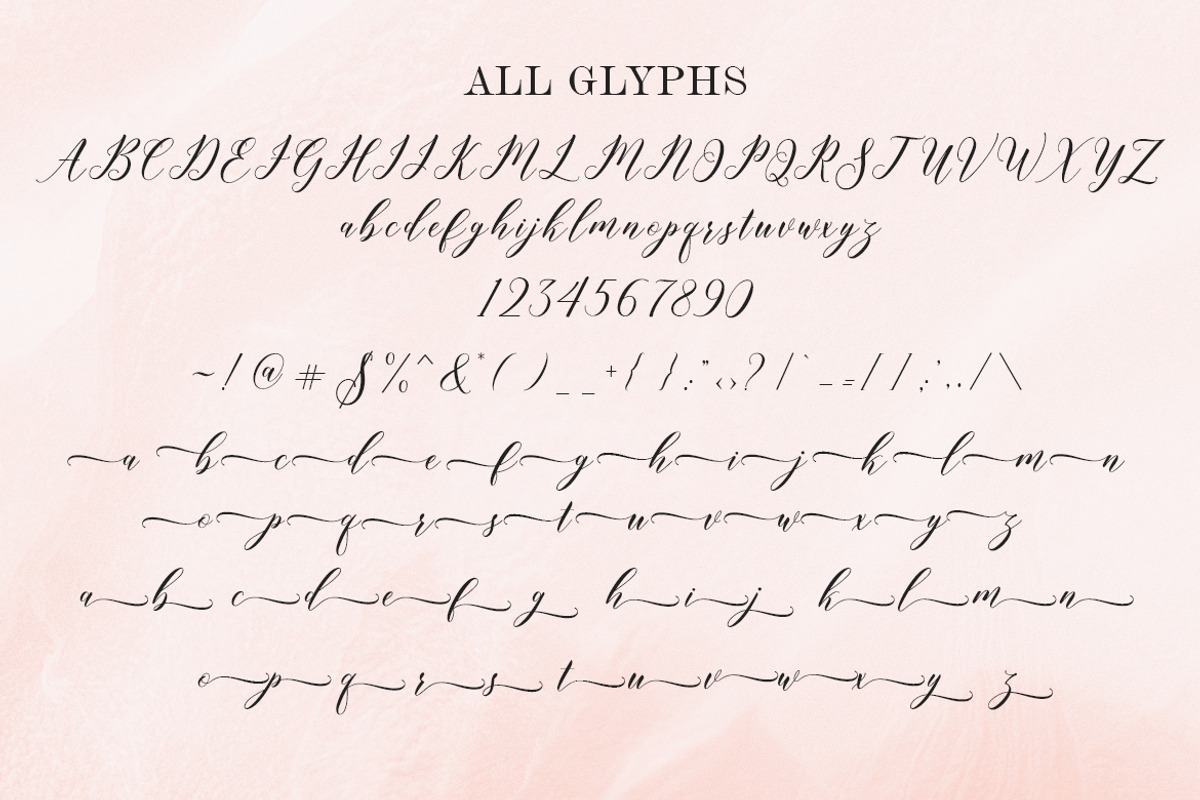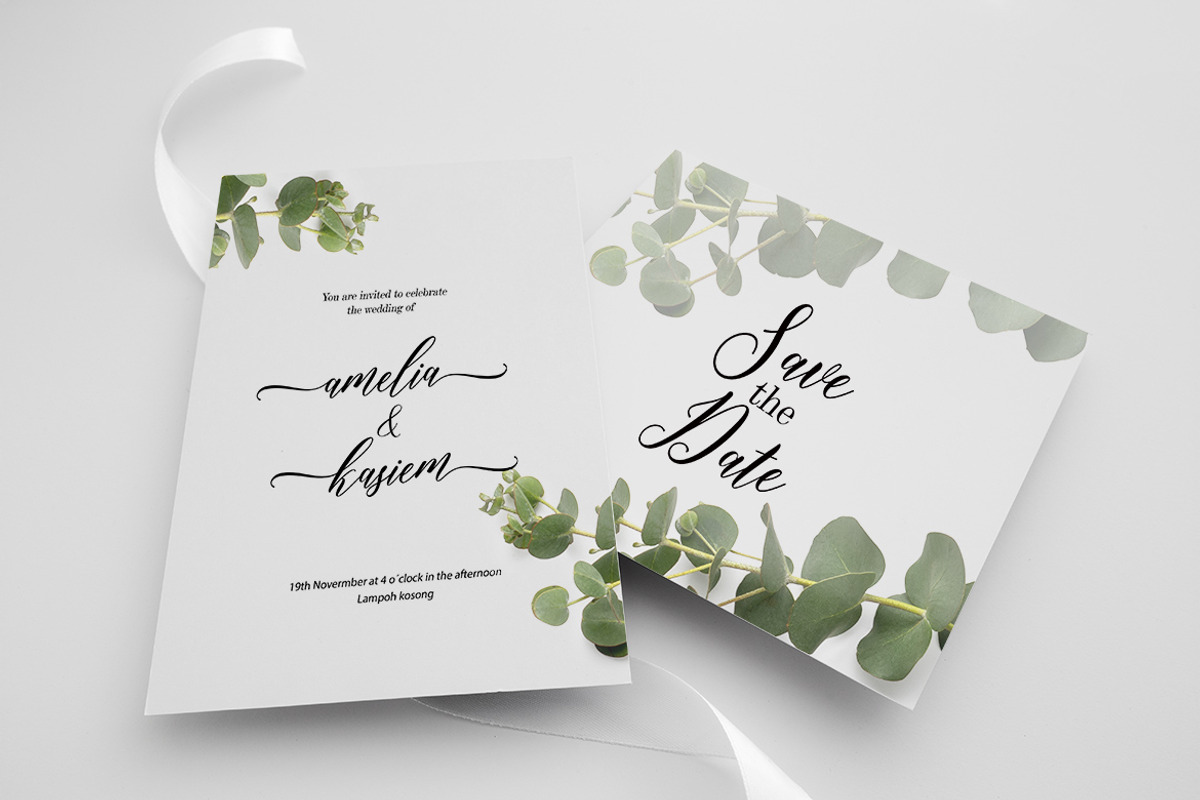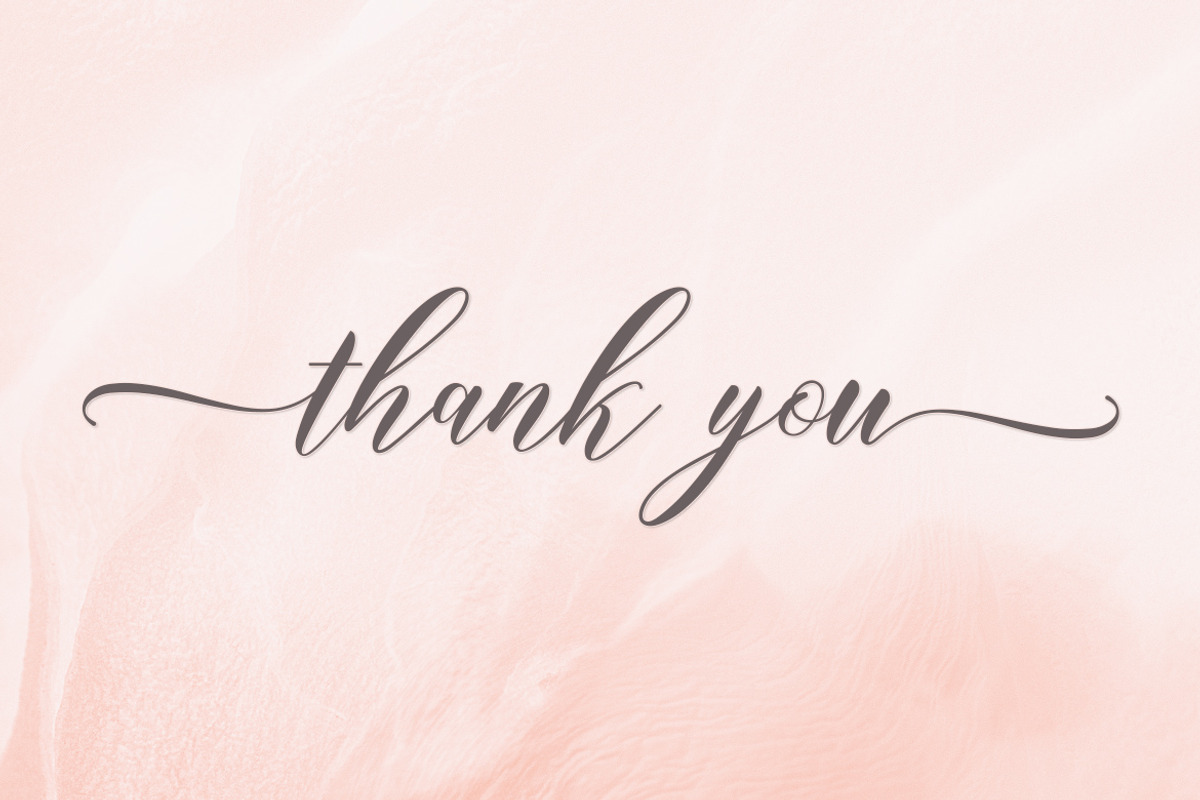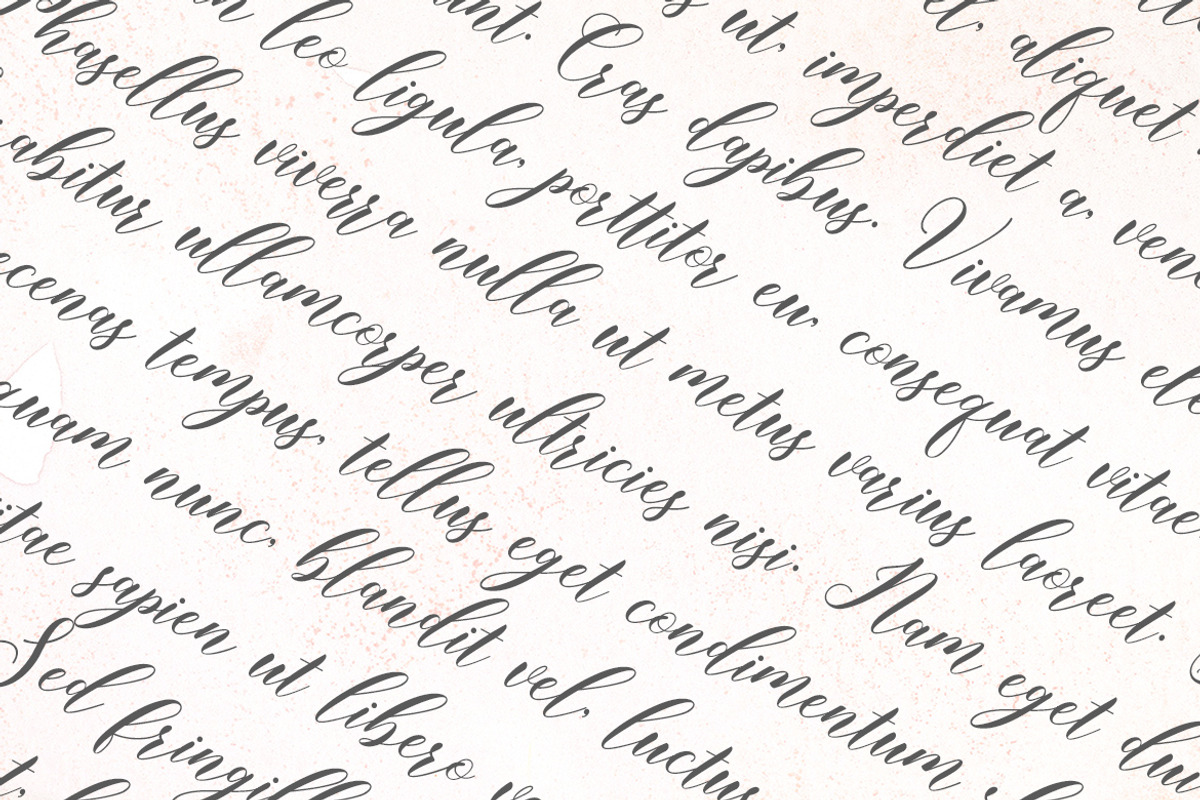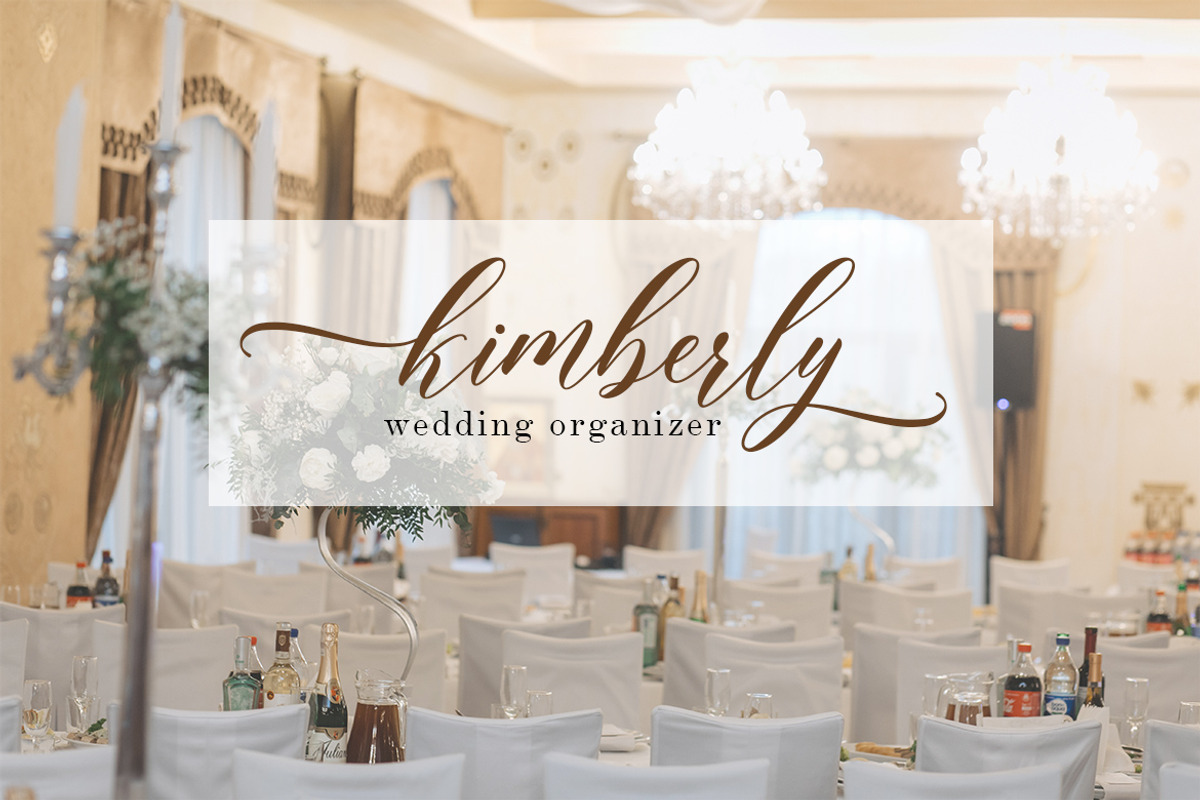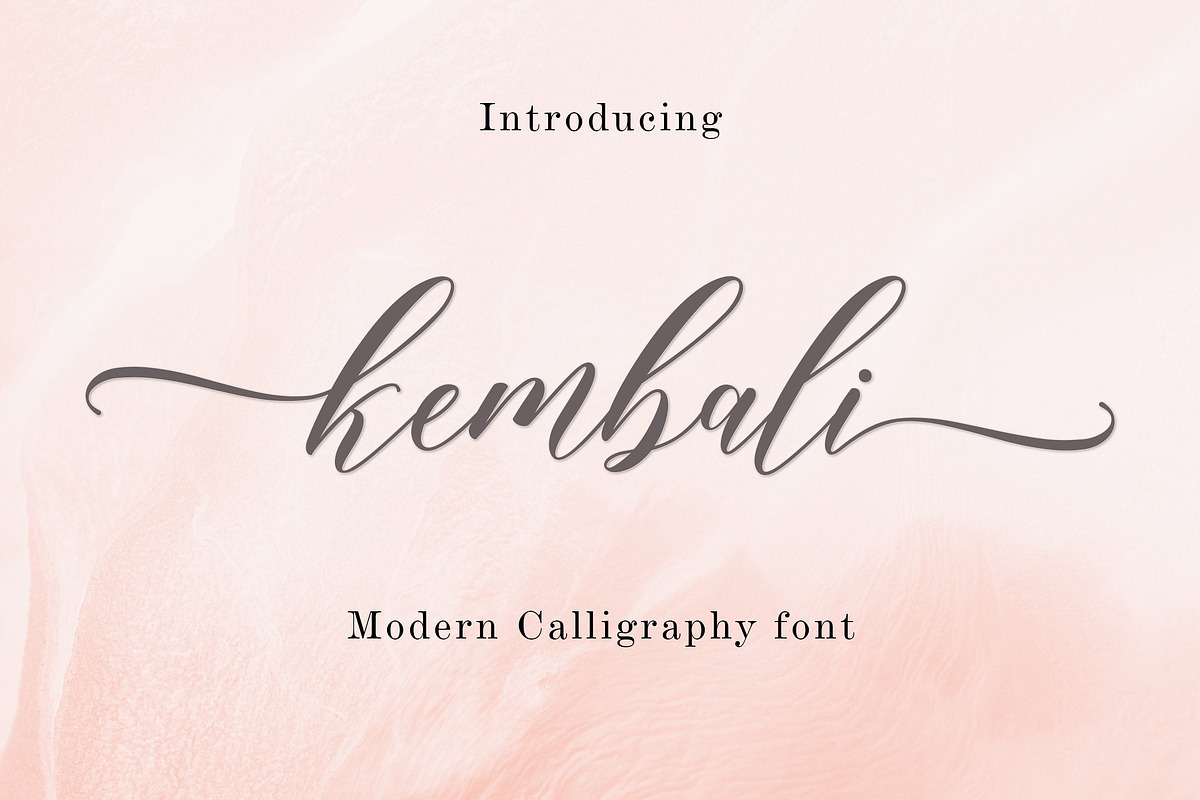
Kembali Script
Introducing Kembali, a harmonious blend of delicacy and elegance rendered as a contemporary script font. Its slender letterforms come alive with fluid strokes and understated curves, crafting a sense of finesse and refinement. Kembali is an ideal choice for projects demanding a touch of class and chic sophistication, making it a go-to choice for wedding invitations, upscale branding, or high-end editorial design.